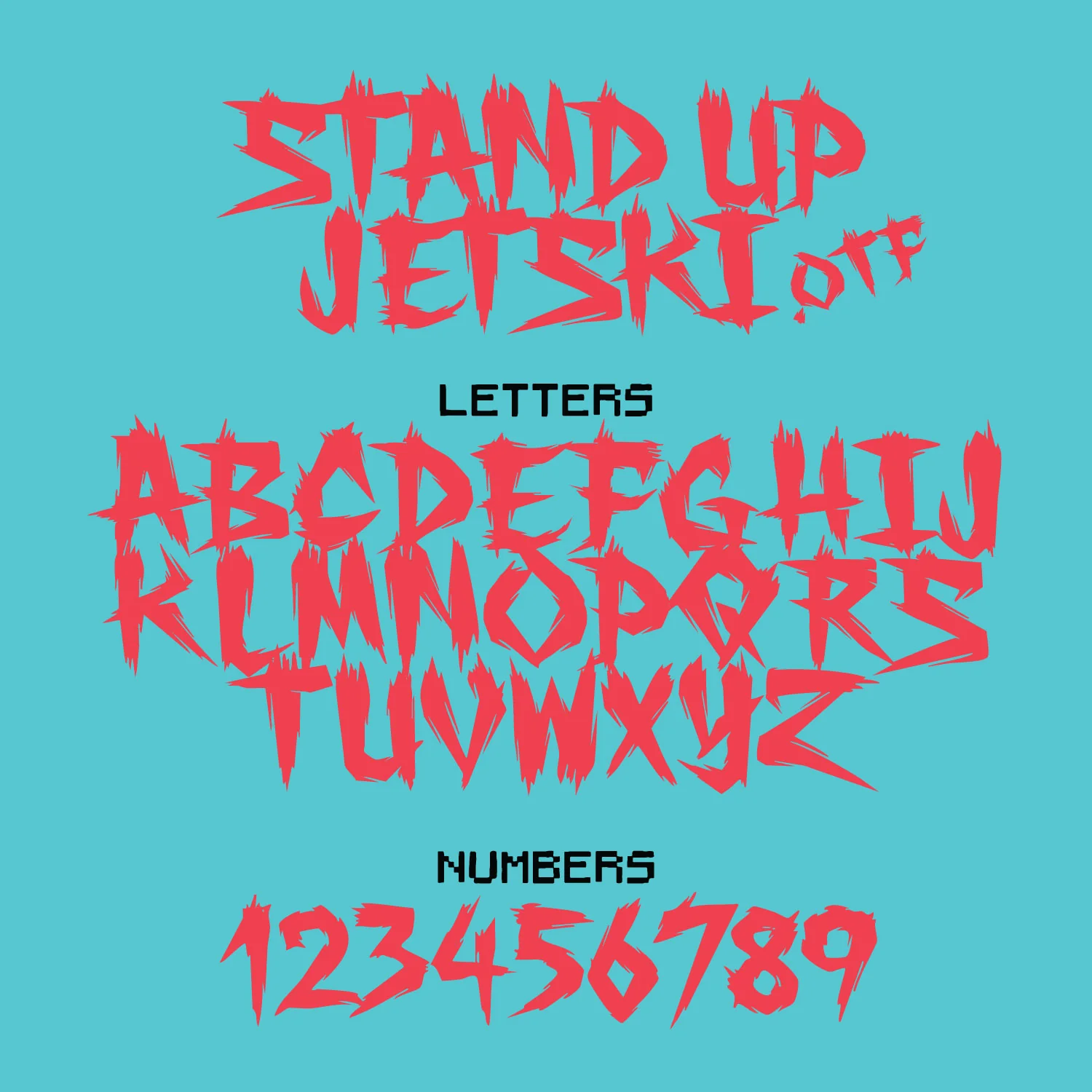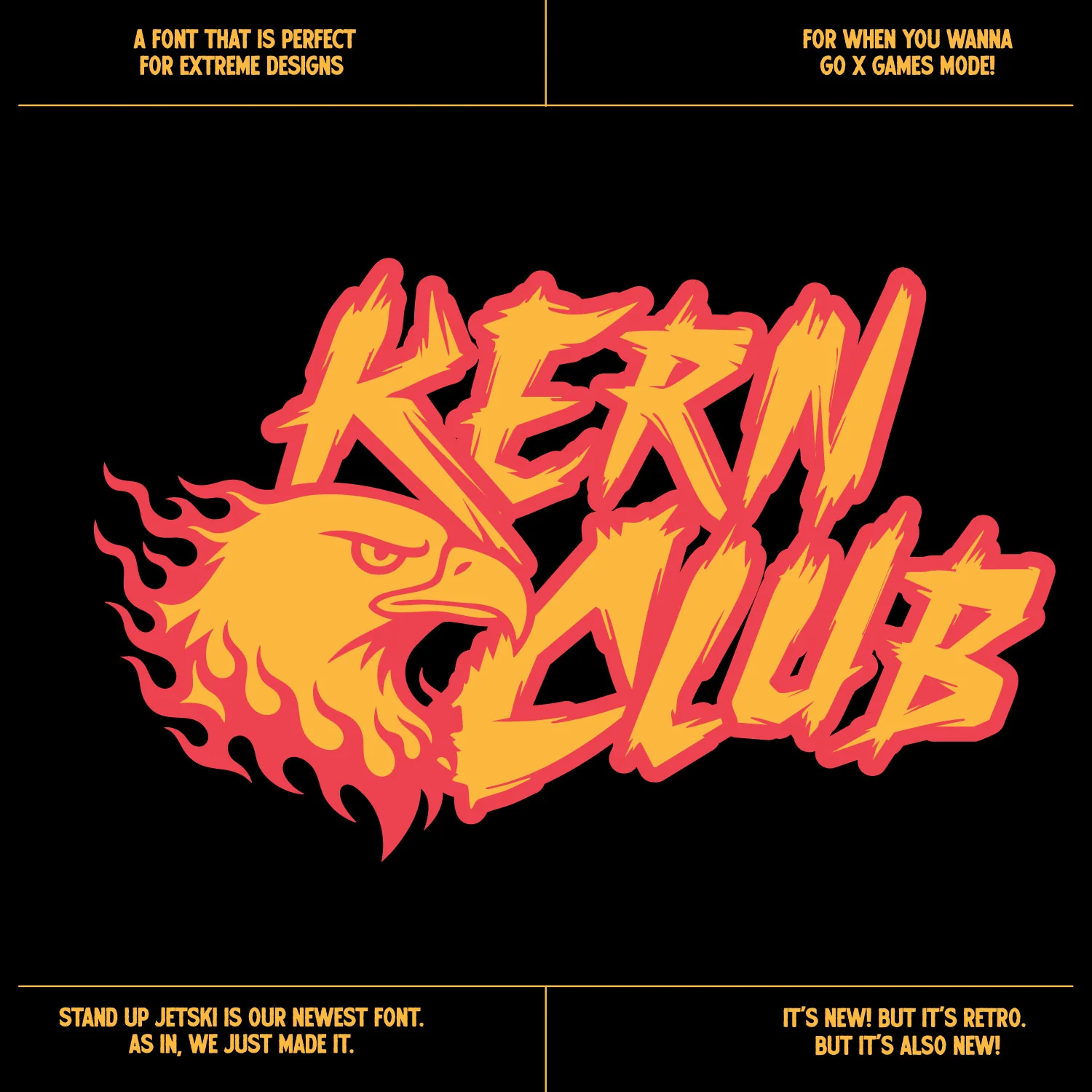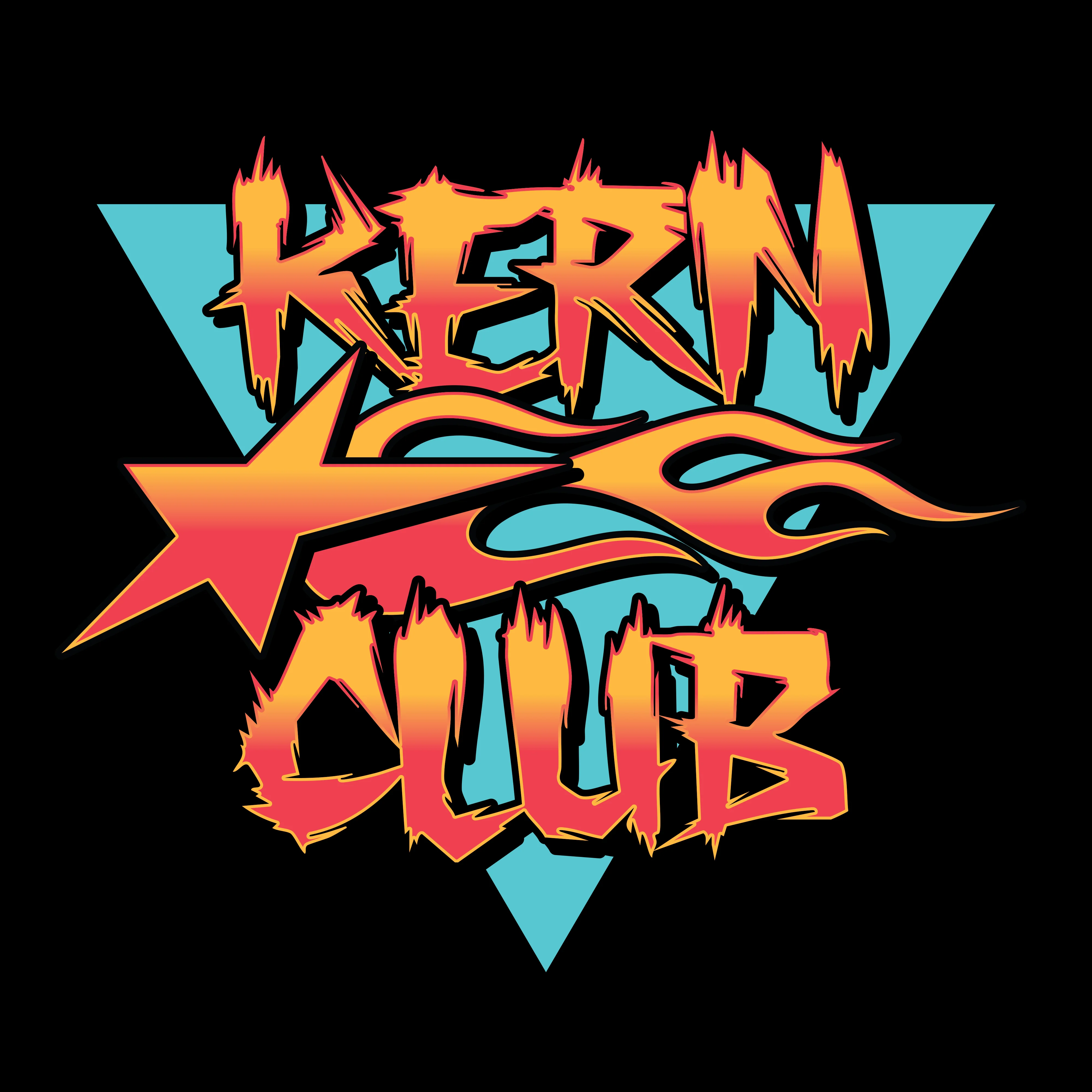
Stand-Up Jetski Font
High-octane display font for when you wanna go X Games mode! Designed by Samborghini
- Uppercase Character Set A-Z
- Numerals & Simple punctuation